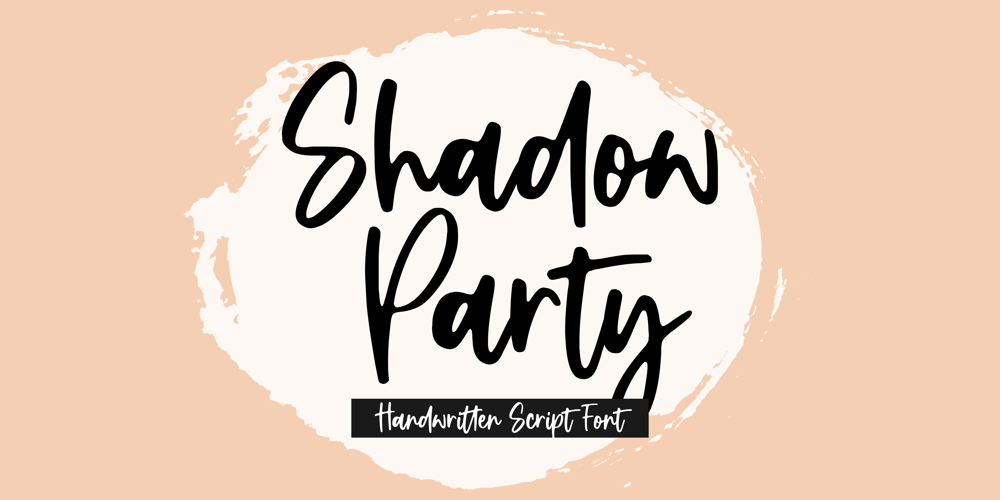
Shadow Party Font Family was designed by Restu Angga and published by Balpirick. Shadow Party contains 1 styles and family package options. Shadow Party is a Handwritten Script Font.Shadow Party is a flowing handwritten font, described by an elegant touch, perfect for your favorite projects. Fall in love with its incredibly distinct and timeless style and use it to create spectacular designs!Shadow Party also multilingual support.Enjoy the font, feel free to comment or feedback, send me PM or email.Thank you!